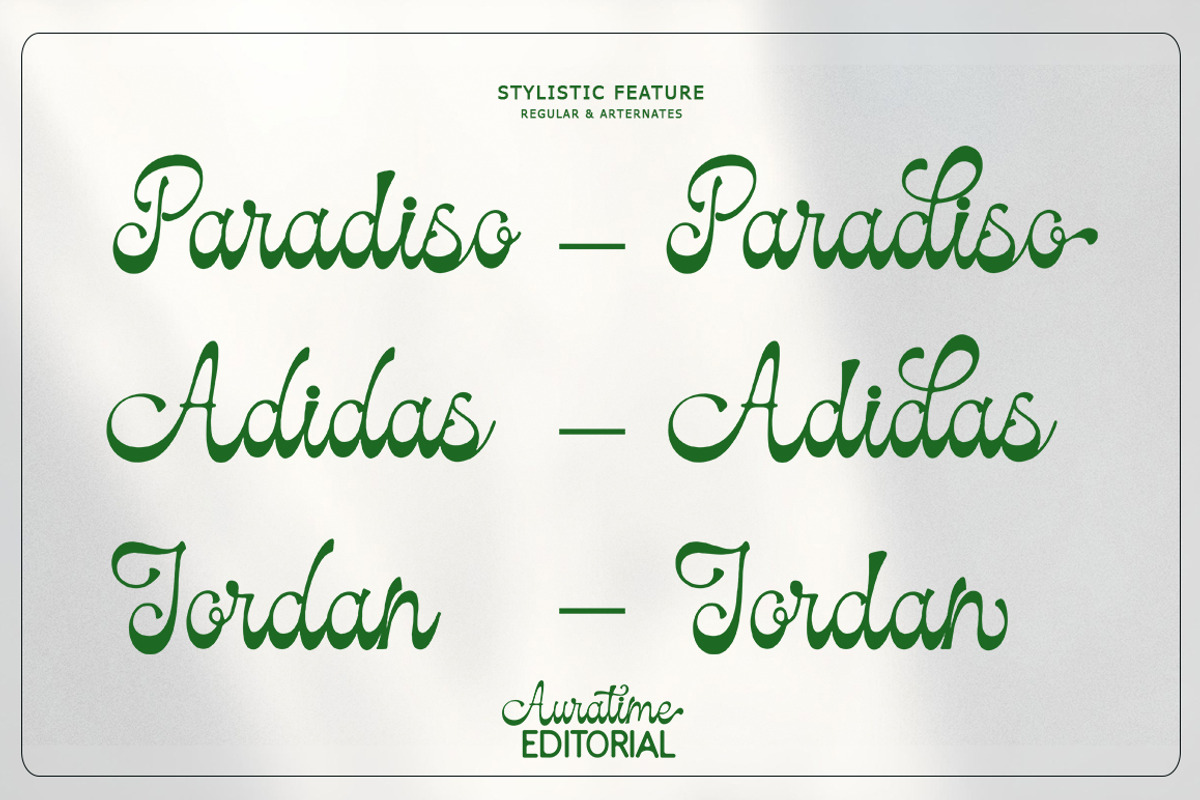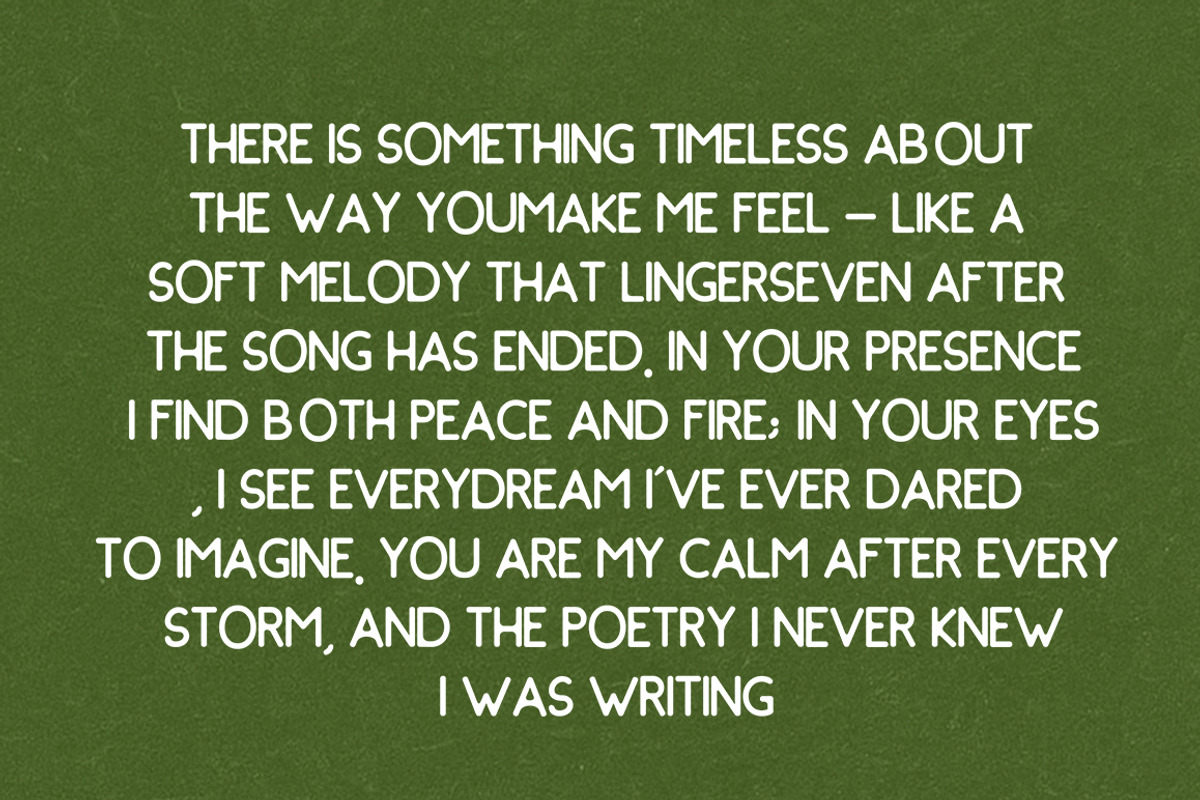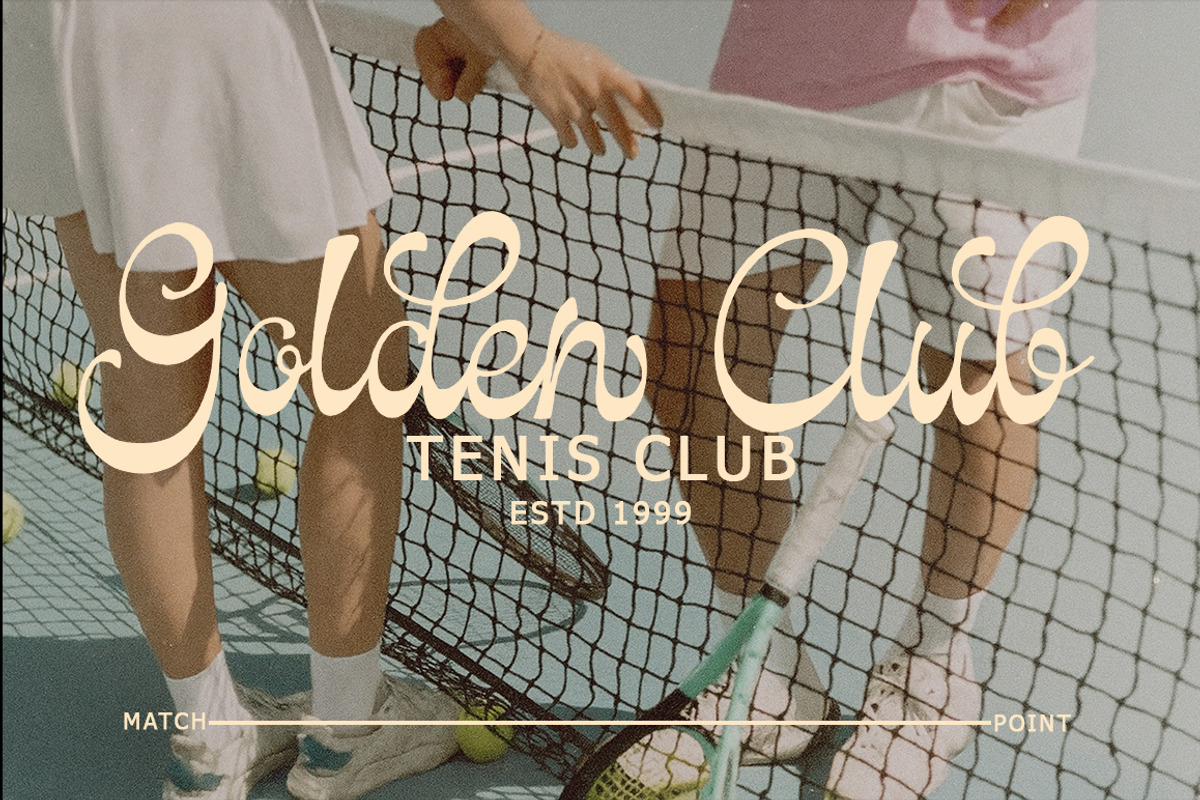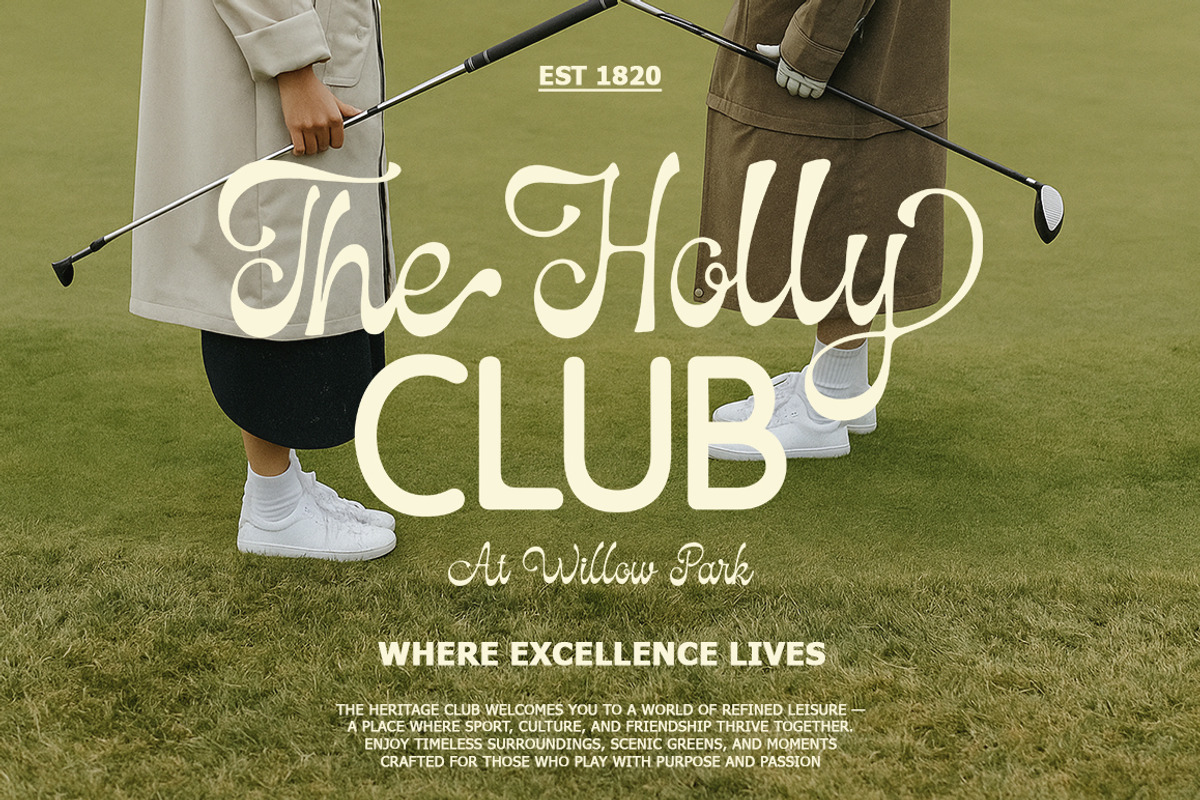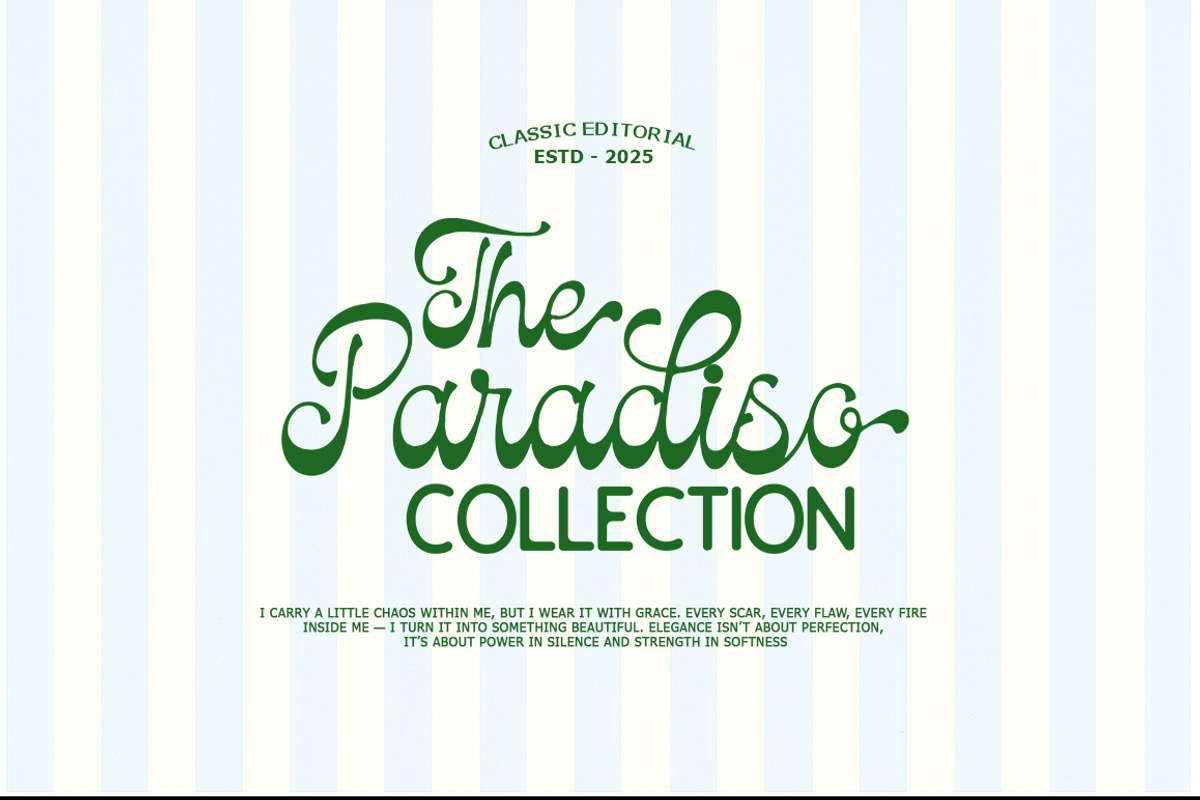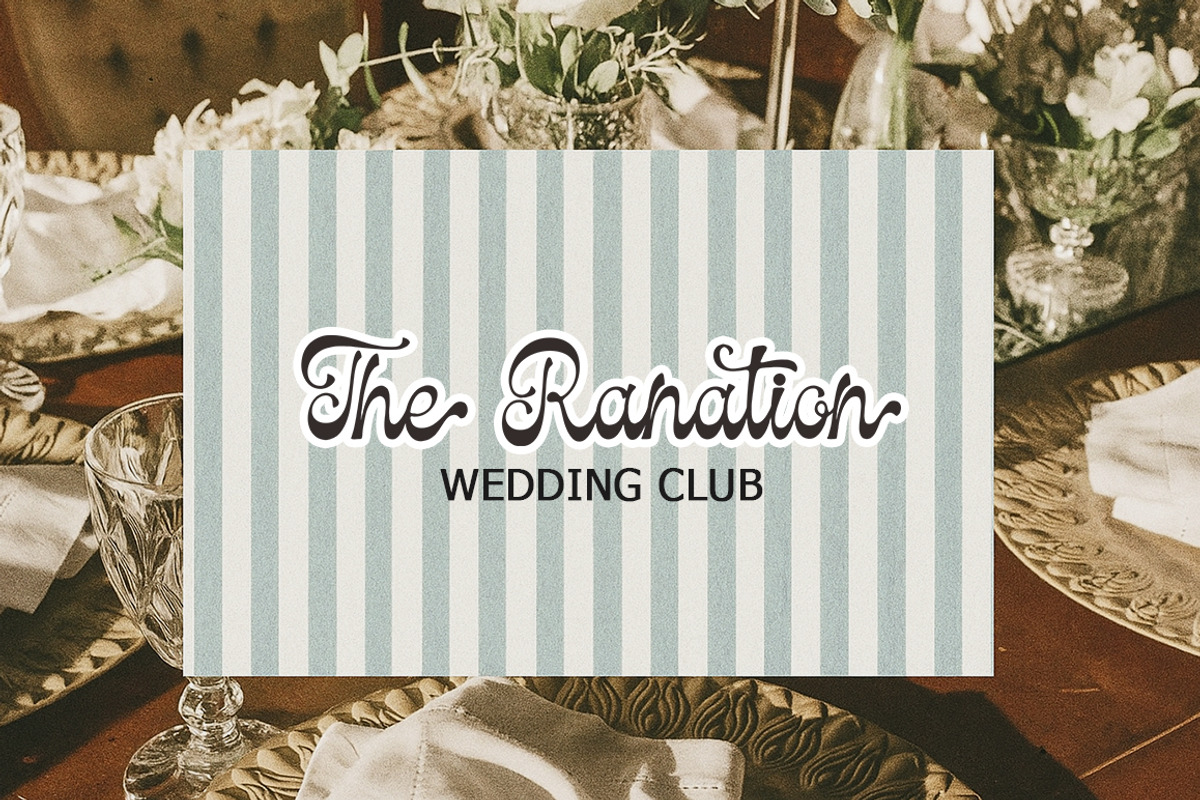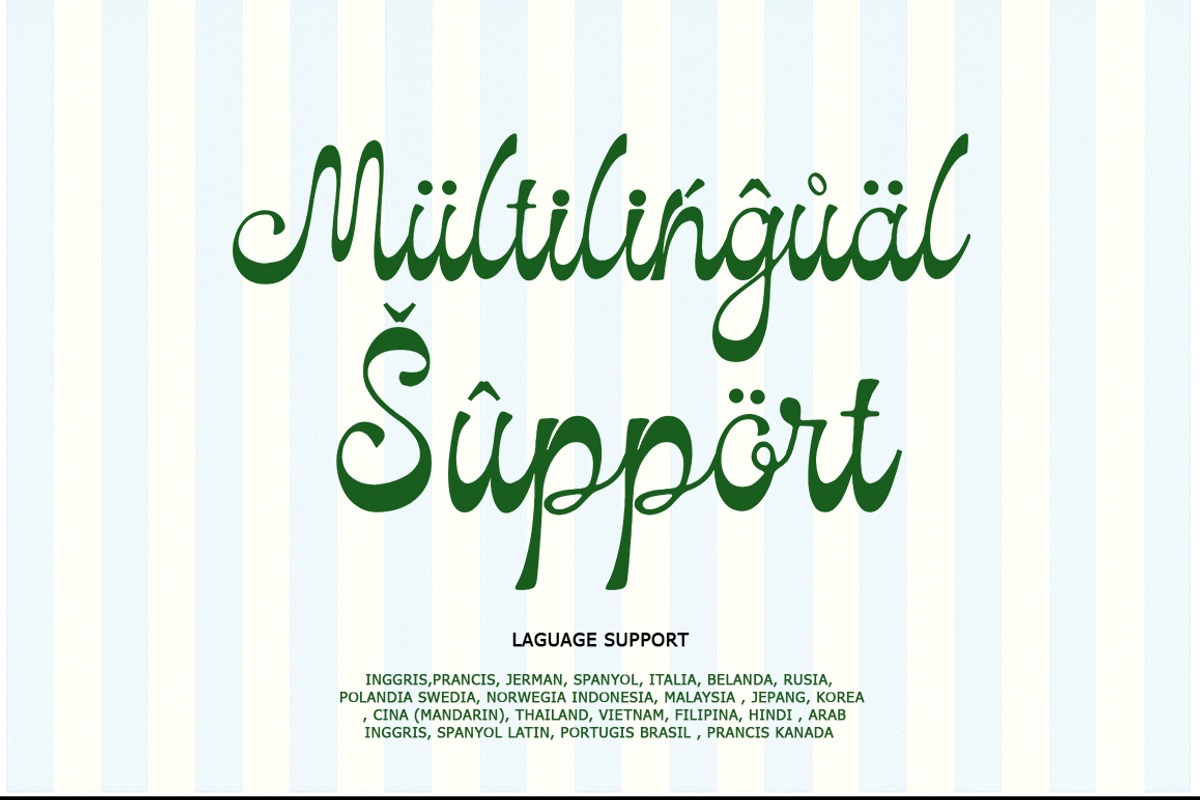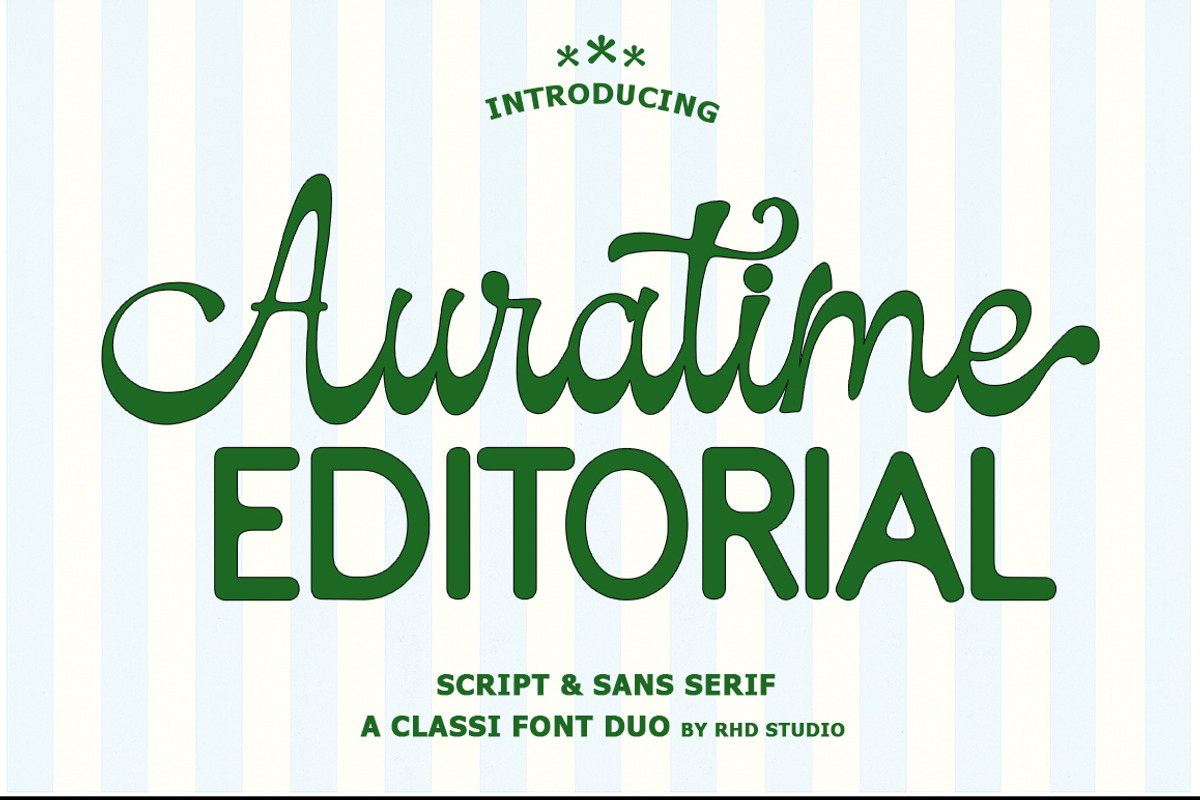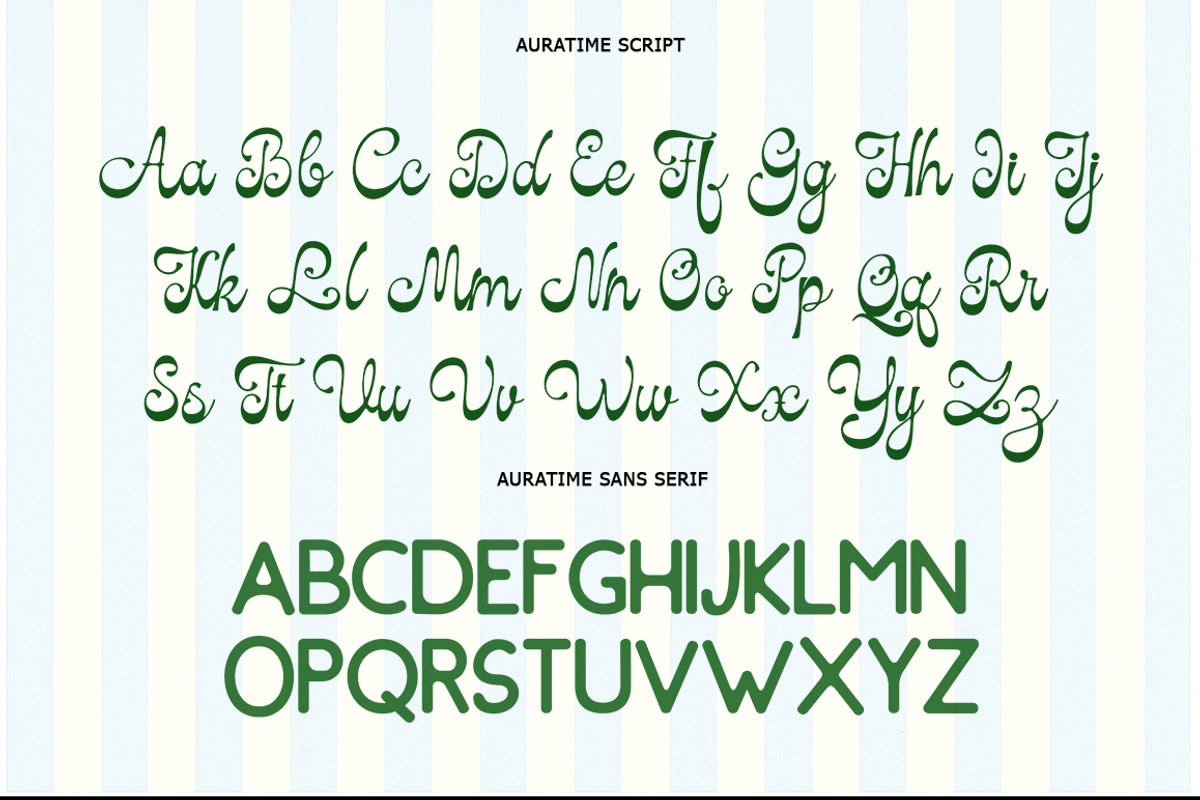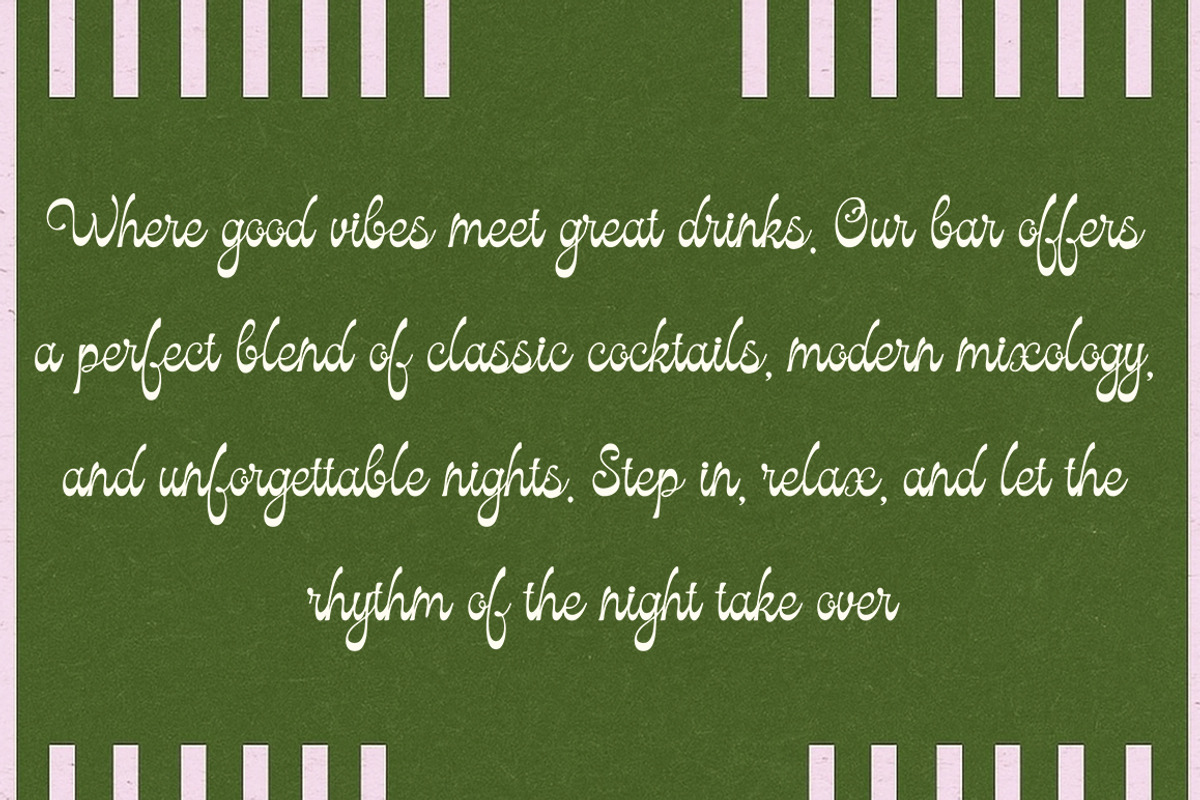
Auratime Editorial
Auratime Editorial is a playful handwritten font with two matching styles: a bold uppercase sans and a soft handwritten script designed in lowercase. This contrast creates a dynamic, trendy look that’s full of personality — bold but friendly, fun but clean. Perfect for eye-catching branding, social posts, posters, clothing tags, stickers, menu design and anything that needs a bit of charm and attitude.
Auratime Editorial supports the most popular latin-based languages, you can check the symbol you need by typing a couple of words in the font preview box